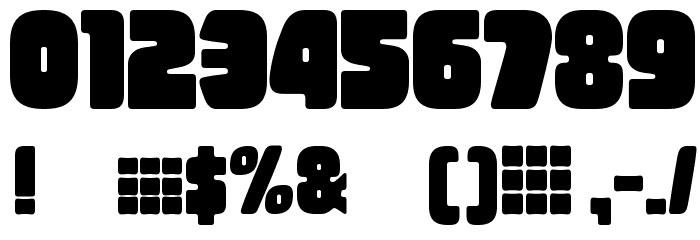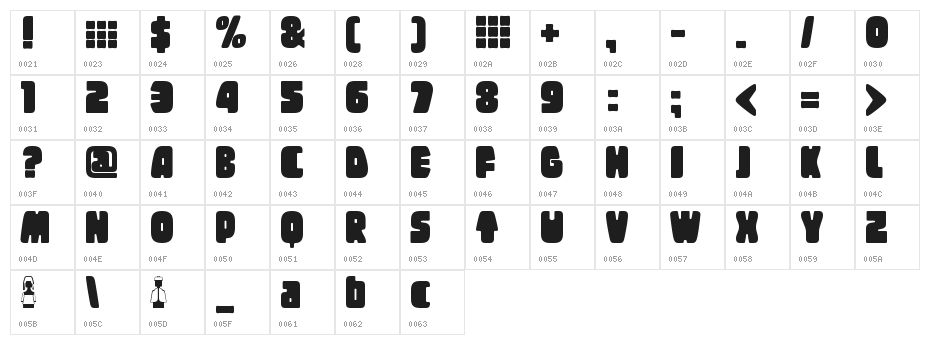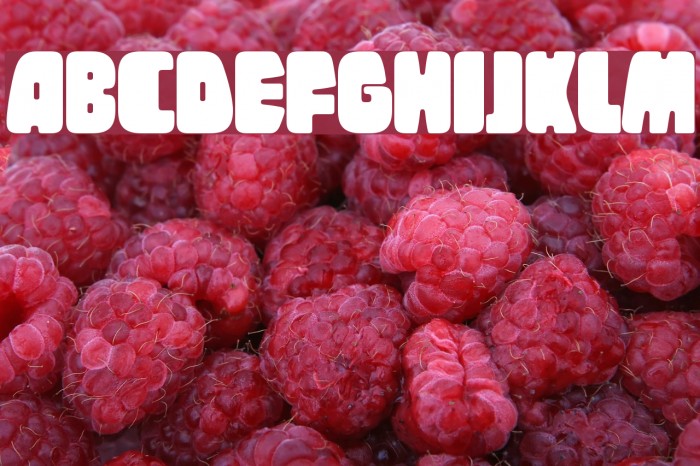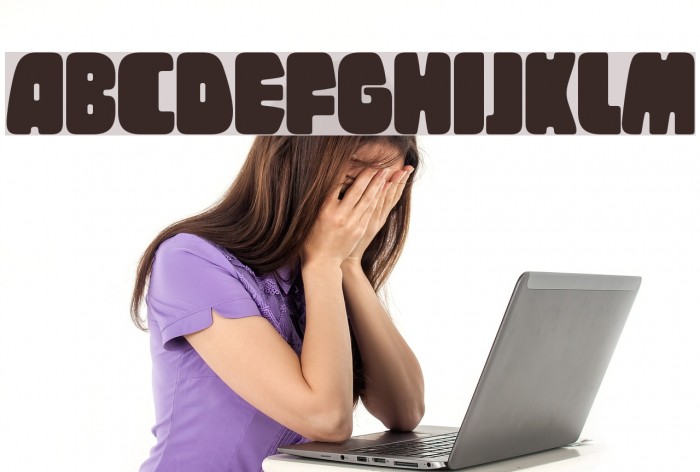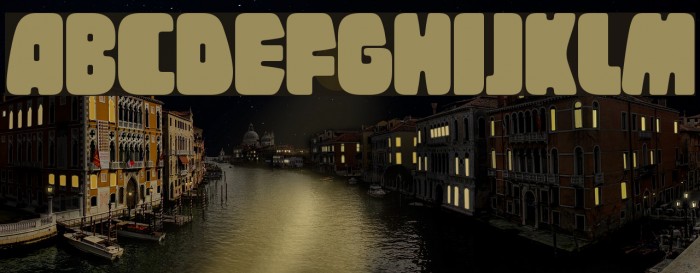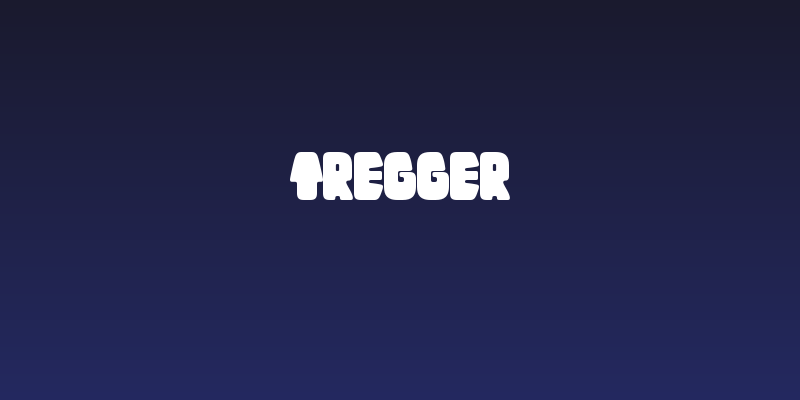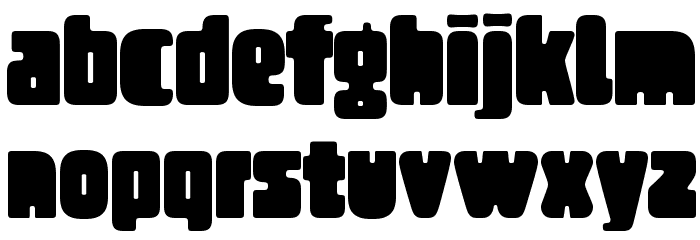
Tregger Font
Tregger Description
This bold and playful font features thick, rounded characters with a distinct, chunky appearance. The letters are tightly spaced, creating a cohesive and impactful look. The uppercase and lowercase letters maintain a consistent style, with a slight variation in height and width that adds to the font's charm. The numbers and special characters are equally bold, ensuring uniformity across all elements. This font's unique style makes it ideal for projects that require a fun and eye-catching design.